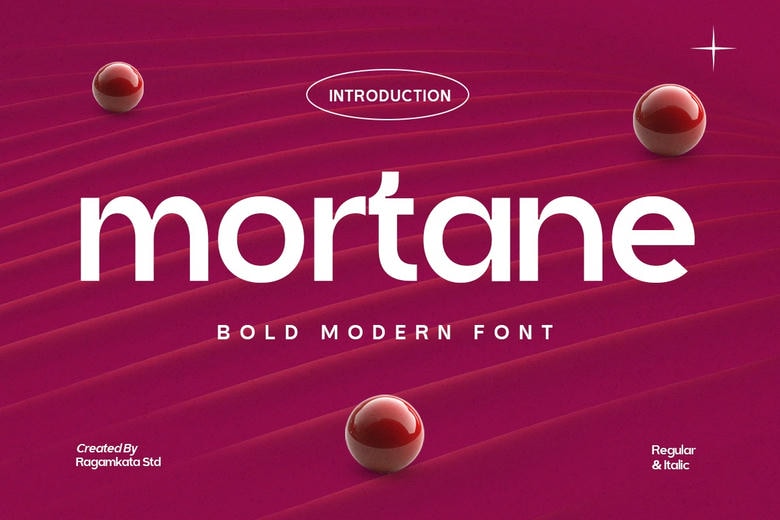
Mortane Font
Mortane is a daring contemporary typeface meant to produce solid visual effects with a crisp, geometrical accuracy. Perfect in contemporary branding, startup logo, technology marketing campaigns, web pages headers, posters, social media, advertisement, packaging layouts, editorial layouts, and web-based marketing imagery.
The clean and powerful character of Mortane enables the designers to produce solid visual hierarchy and contemporary compositions easily. This font delivers clarity, contemporary sophistication, and assured typographic delivery, regardless of whether it is used on digital platforms or print projects.
Mortane Sans Serif Font